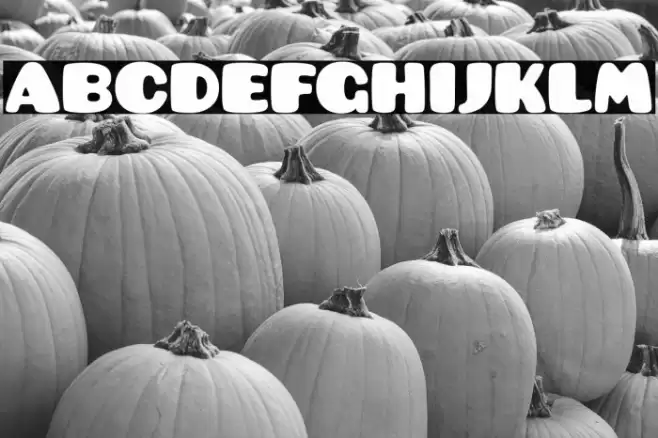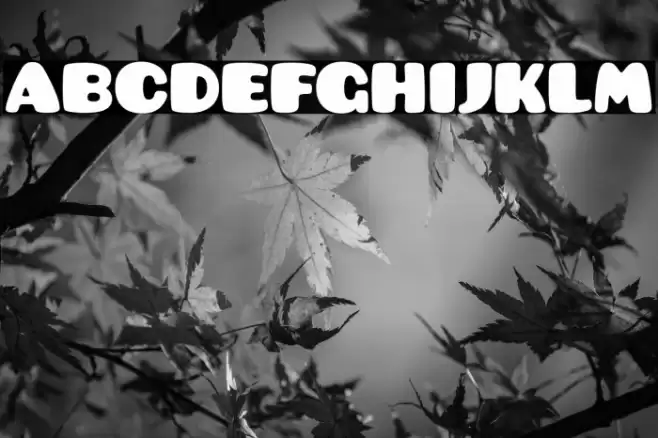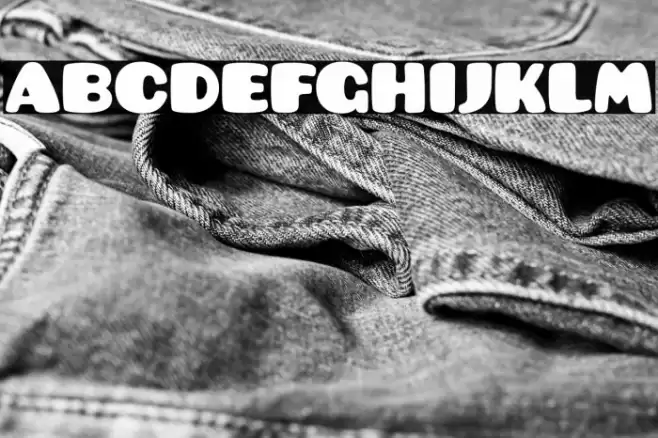
Pusab Font
Pusab Description
This font features bold, rounded characters with a playful and chunky appearance. Each letter and number is crafted with a consistent thickness, giving the font a cohesive and uniform look. The rounded edges and lack of sharp angles contribute to a friendly and approachable style. The characters are evenly spaced, ensuring readability while maintaining a compact form. This font is ideal for designs that require a fun and informal touch, such as children's books, playful branding, or casual event invitations. Its boldness ensures that it stands out, making it suitable for headlines and attention-grabbing text.
A bold, rounded, and playful font with a chunky appearance from Uncategorized fonts.
- Font: Pusab
- Proposed Projects: Ideal for children's books, playful branding, casual event invitations, and headlines.
- Overall Style: Playful